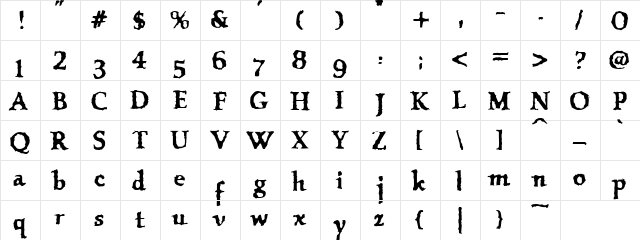
VTC OldAsCrap Regular
| Designer | WolfBainX |
Design Context for VTC OldAsCrap Typeface
VTC OldAsCrap is a composed and adaptable typeface that performs quietly and consistently across a wide range of design contexts.